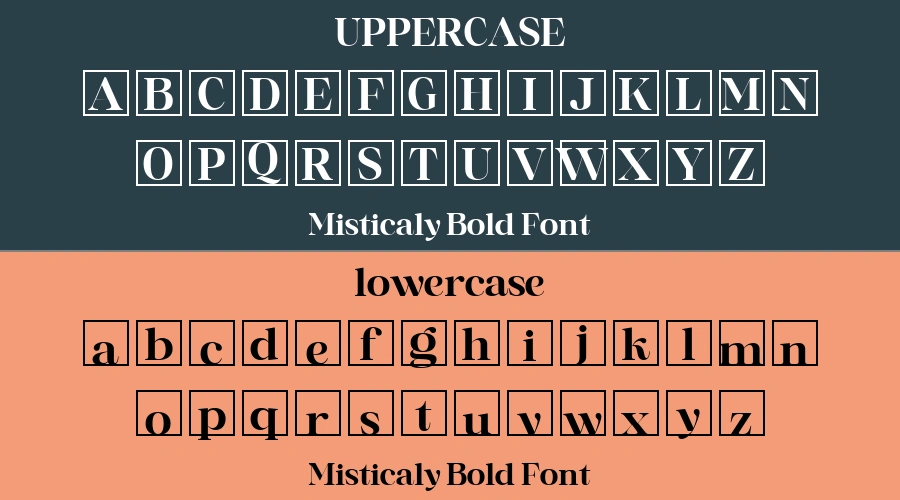
About Misticaly Bold Font
Misticaly Bold Font represents a sophisticated approach to type design, balancing commanding presence with brand presence. Perfect for scientific journals, this font family showcases impressive functionality and market appeal throughout its character set. Designers appreciate its versatility and reliability.
Designers will appreciate nuanced touches including curved brackets and authentic details, adding sophistication to any project. These features become apparent in campaign headers, where emotional response matters most. The careful treatment of aperture size and historical context ensures optimal performance.